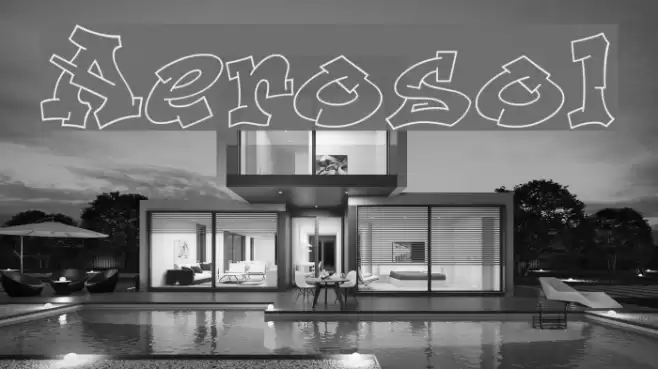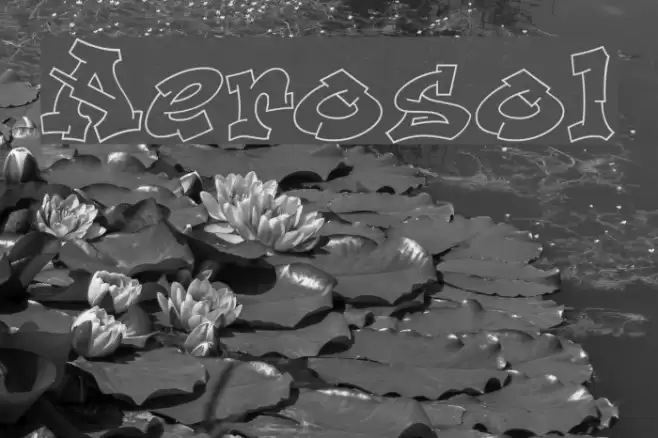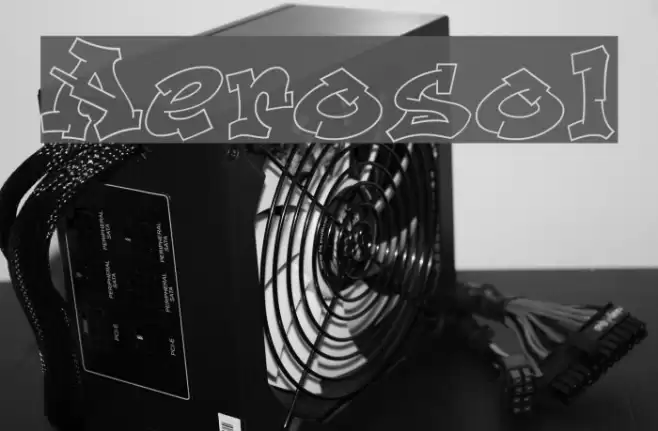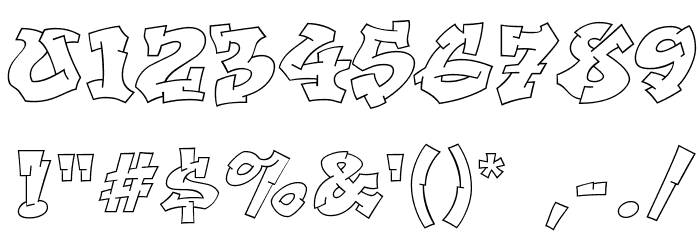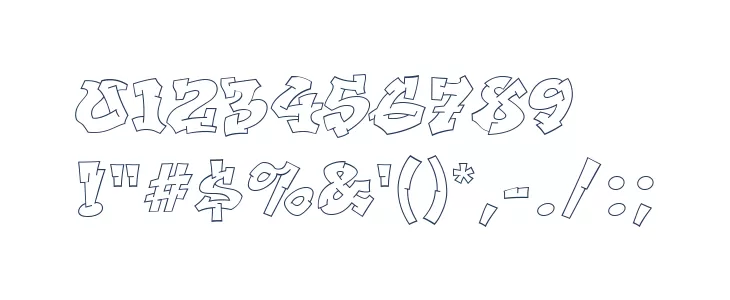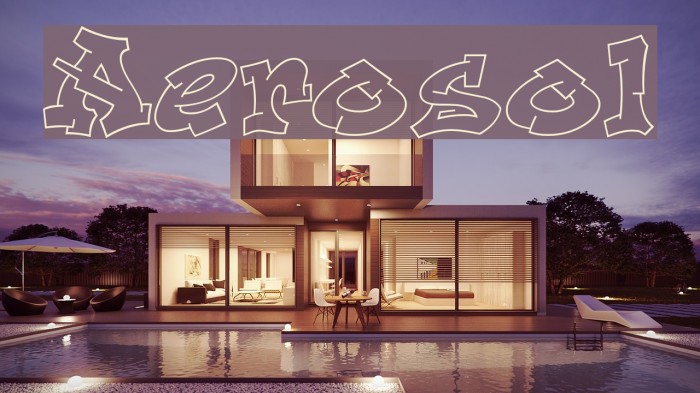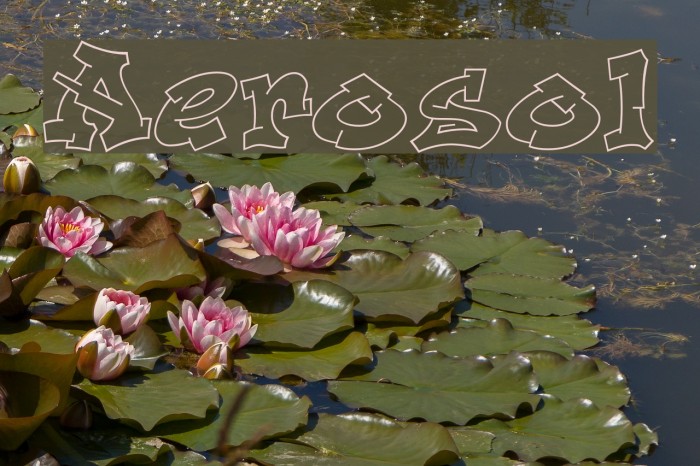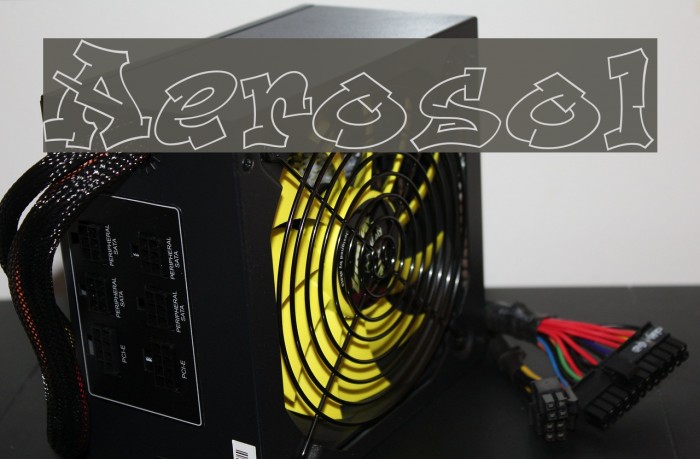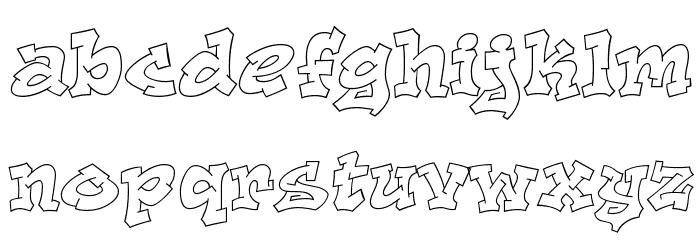
Aerosol Font
Aerosol Description
This font exudes a bold, urban graffiti style, characterized by its thick, angular strokes and dynamic, energetic forms. The letters are designed with a three-dimensional effect, giving them a sense of depth and movement. Each character is uniquely shaped, with sharp edges and a playful, rebellious attitude. The uppercase and lowercase letters maintain a consistent style, while the numbers and special characters complement the overall aesthetic. This font captures the essence of street art, making it ideal for projects that require a bold, eye-catching design.
A bold, graffiti-style font with angular, dynamic forms and a three-dimensional effect from Typewriter fonts.
- Proposed Projects: Ideal for street art-inspired designs, urban-themed posters, music album covers, and edgy branding projects.
- Overall Style: Urban, Graffiti, Bold